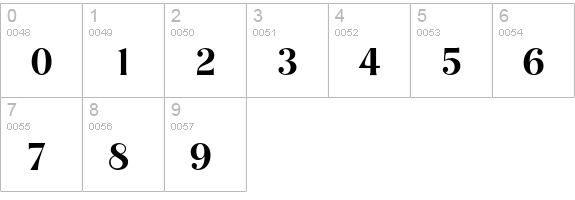
NashvilleEF-Medium is a balanced, medium-weight variant in the NashvilleEF typeface family \xE2\x80\x94 well suited to sub-headlines, navigation, and balanced editorial work.
NashvilleEF-Medium is a modern and stylish font that exudes sophistication and elegance. Its sleek lines and balanced proportions make it perfect for a wide range of design projects, from branding to editorial design. The medium weight strikes the perfect balance between boldness and readability, making it an excellent choice for both display and body text. What sets NashvilleEF-Medium apart is that it is available for free download at FontsMarket.com. This means that you can easily access this versatile font without any cost, making it a valuable addition to your font collection. Whether you're working on a personal project or a professional design, NashvilleEF-Medium is sure to elevate your work with its timeless appeal and versatility. Download it today and see how this font can enhance your designs!